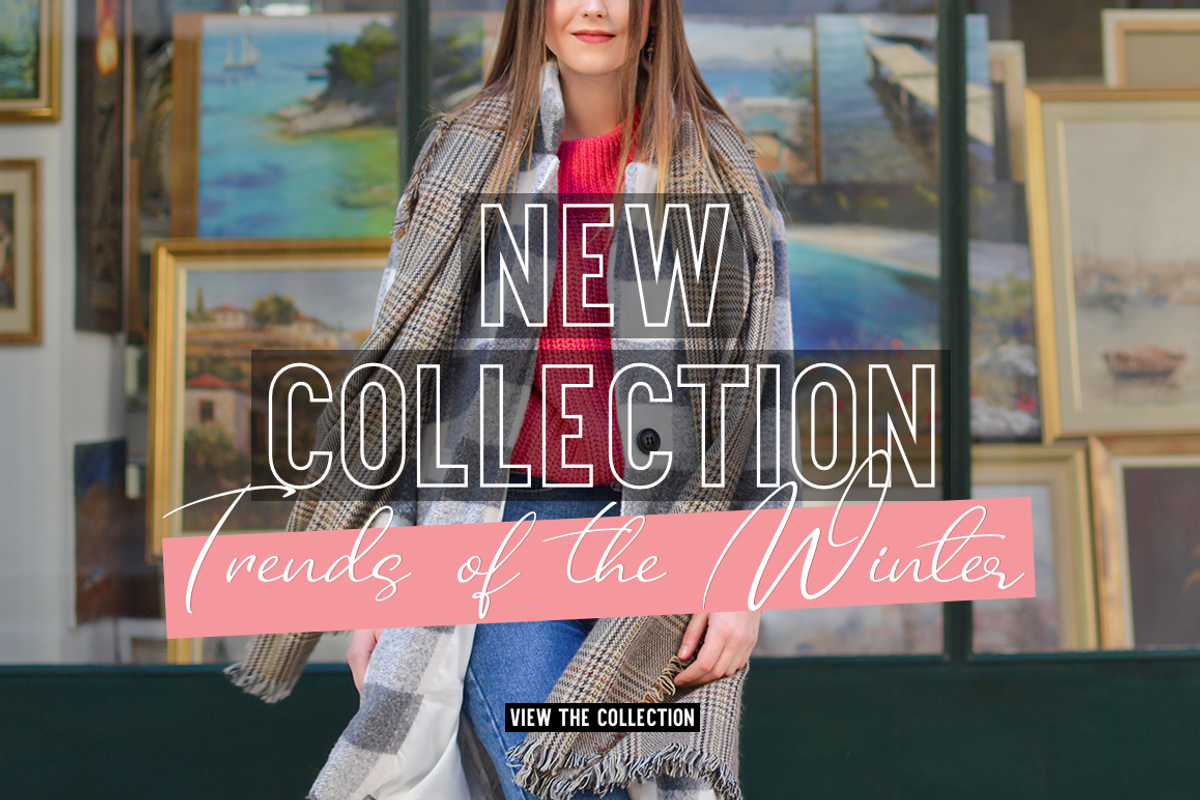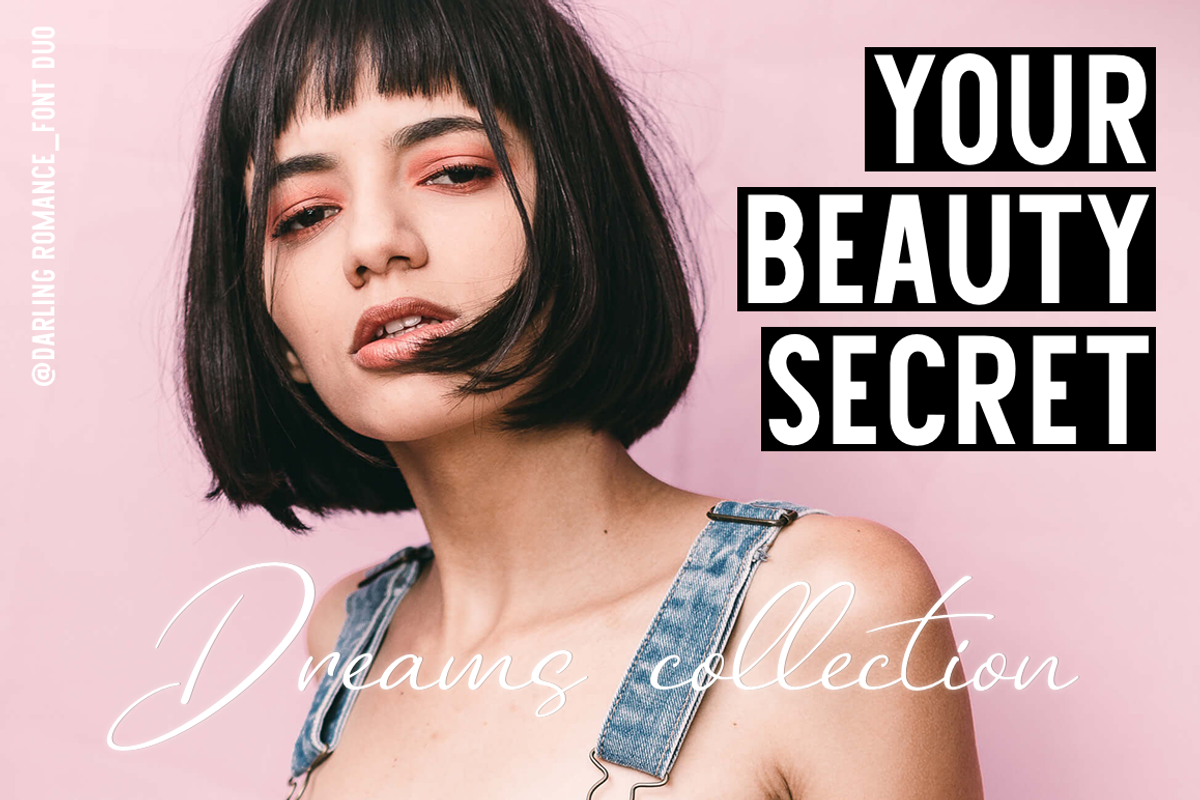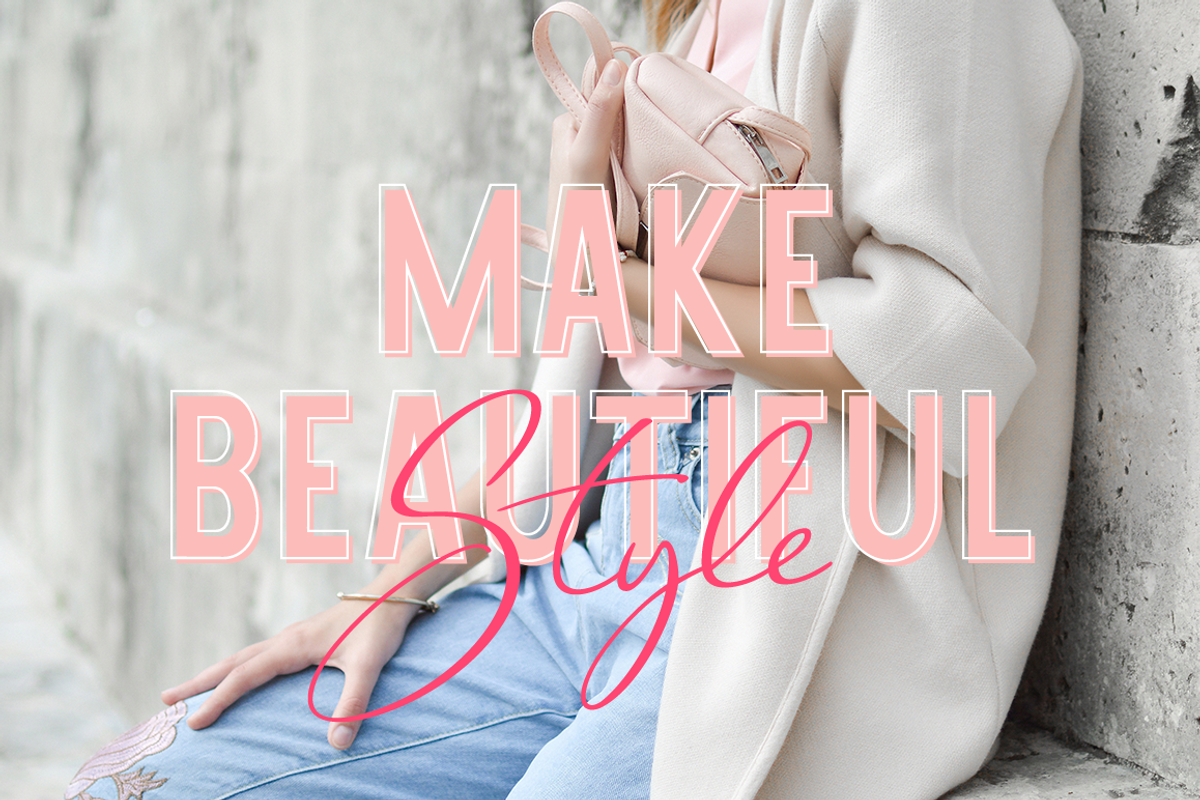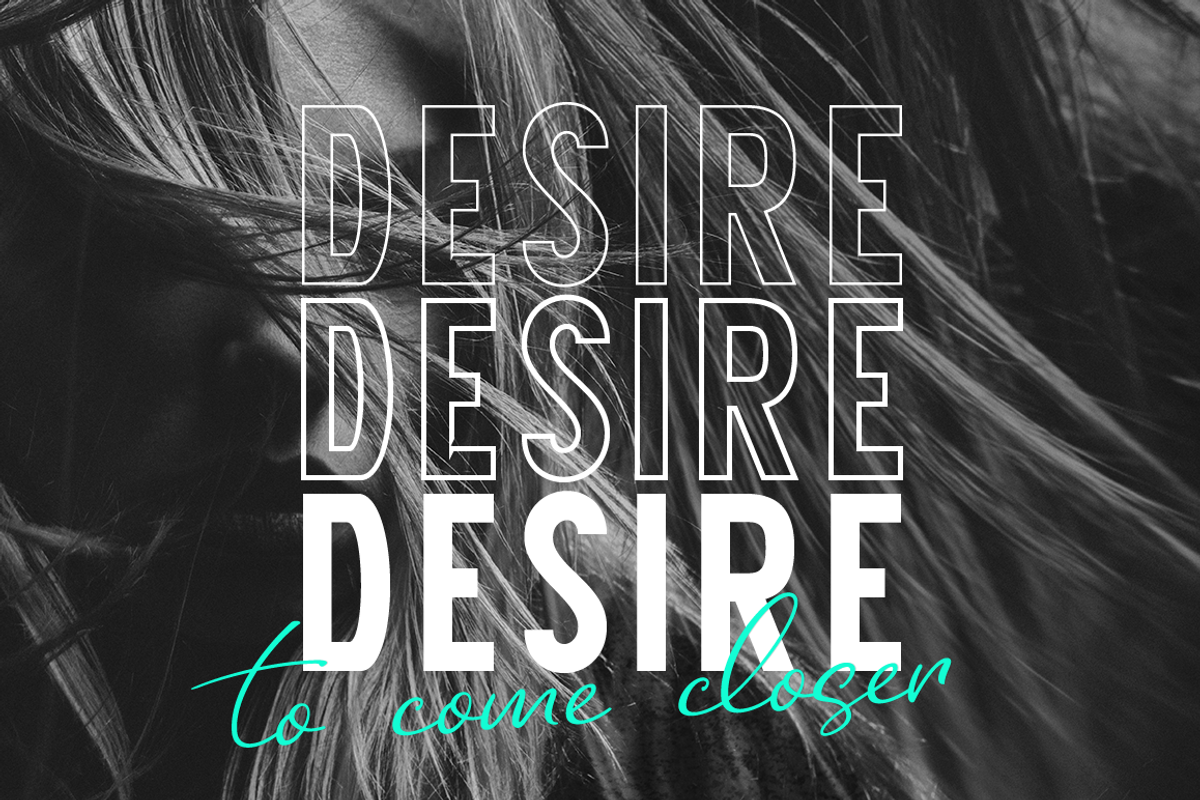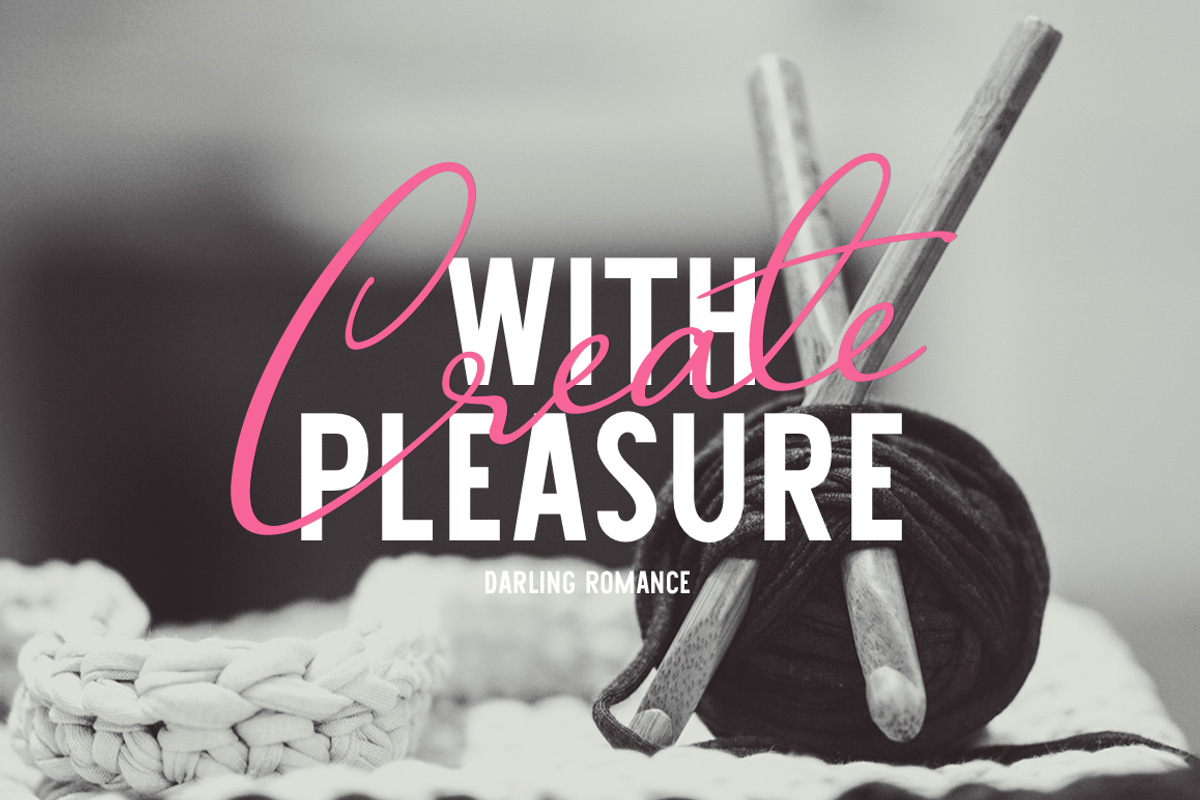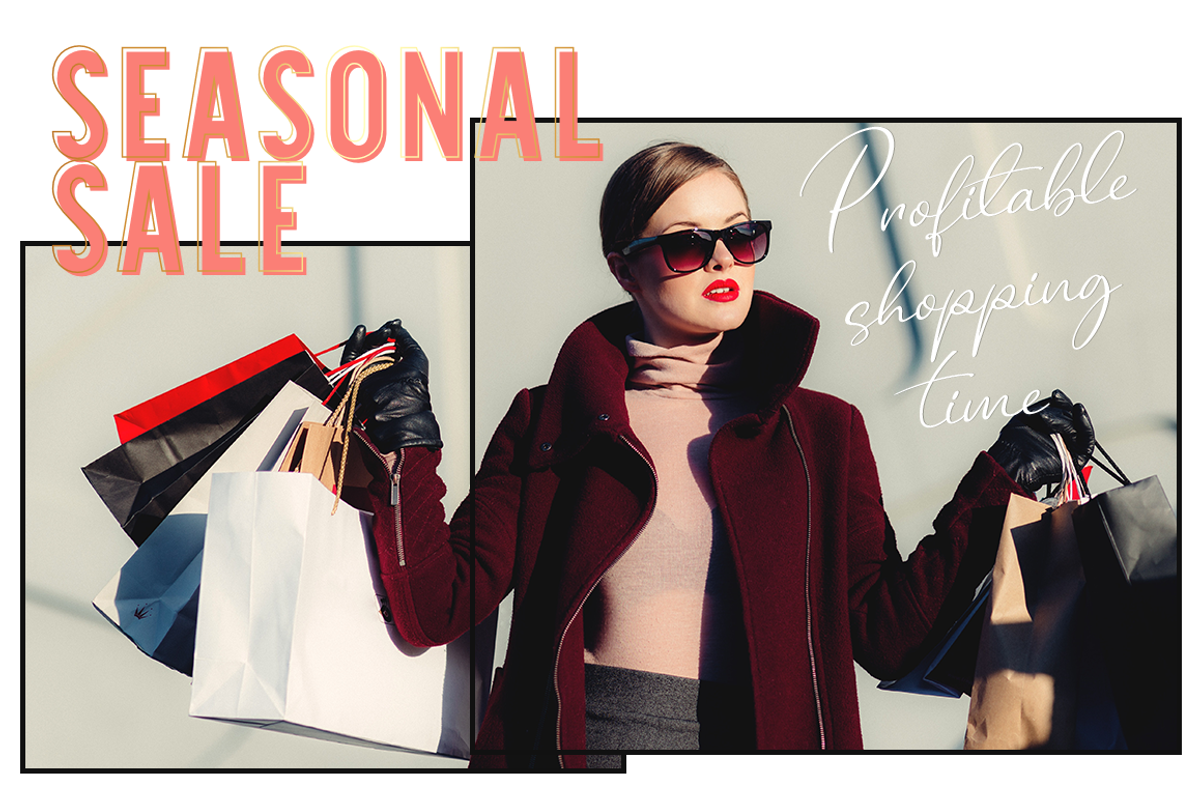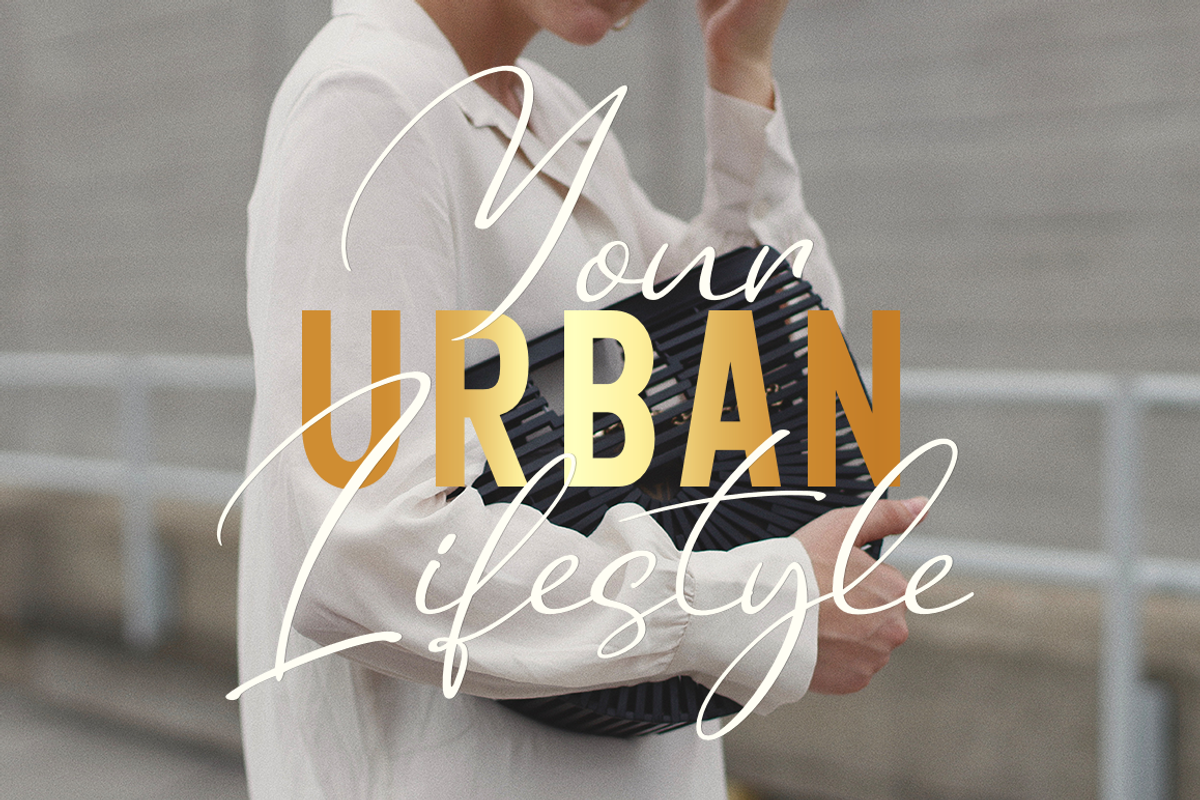
Darling Romans # Font Duo
Darling Romance- a new handmade font collection.
This fonts is ideal for branding and decorate your any project. Also with their help, you can create a logo or beautiful frame for your home. Or just use for your small business, book covers, stationery, marketing, blog, magazines and more.